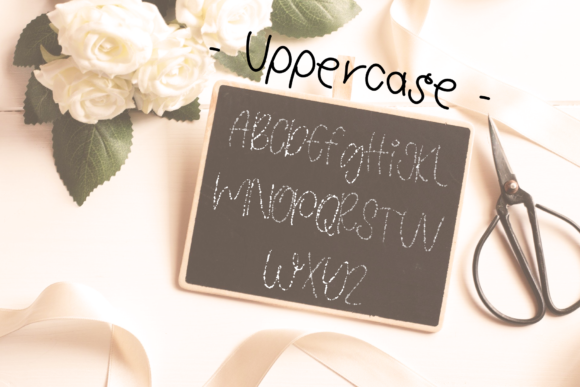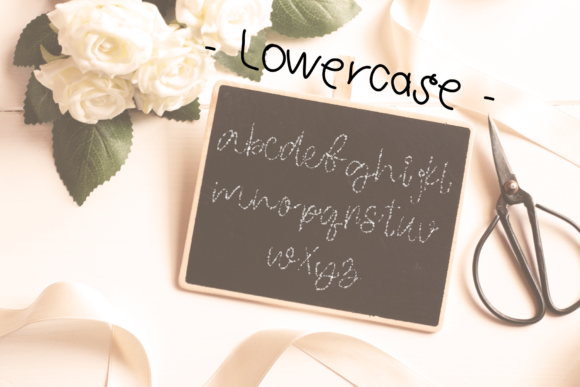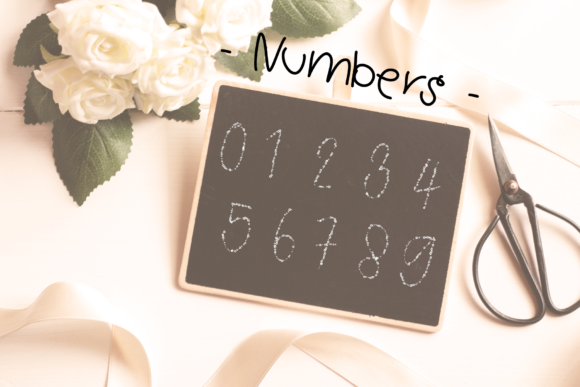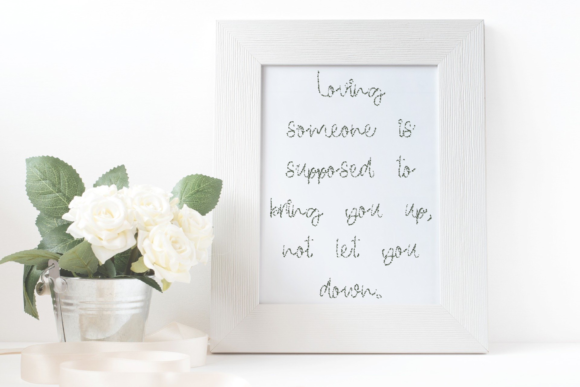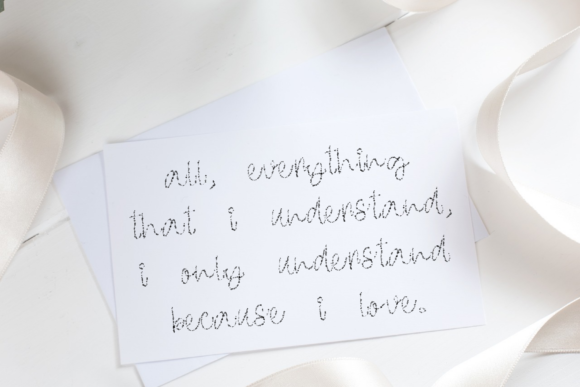
Unleash Your Creativity with Bubble Font
Have you ever stared at a blank page, struggling to find the perfect font to bring your creative idea to life? You’re not alone. As designers, we’ve all been there, desperately searching for that one font that makes our work pop.
Enter Bubble Font, a playful and charming handwritten font that adds a touch of whimsy to any design. Whether you’re creating a birthday card, a social media post, or a brand identity, Bubble Font is the perfect addition to elevate your work.
For designers, Bubble Font is a valuable asset. Its unique, hand-drawn style makes it stand out in a crowded market, and its versatility ensures it can be used in a wide range of projects. With Bubble Font, you can add a touch of personality to your designs and make them truly unforgettable.
Bubble Font Key Features
- Unique Characteristics: Bubble Font features a distinctive, hand-drawn style with rounded bubbles and playful connections between letters, adding a whimsical touch to any design.
- Kerning and Ligatures: The font includes advanced kerning and ligature features, ensuring smooth letter spacing and elegant connections between letters.
Bubble Font Review
Overall, I’m really enjoying working with the Bubble Font. ✨ It’s so playful and fun, it adds a great touch to any design. The rounded, bubbly shapes are perfect for creating a lighthearted and approachable atmosphere.
The font is highly customizable, which is great for designers who want to fine-tune their work. You can adjust the size, color, and even add animations to make it truly stand out. ✨ The font’s compatibility with various devices and platforms is also a major plus.
Here are some of the features that work well:
- Perfect for playful and approachable designs
- Compatible with various devices and platforms
- Can be used for animations and effects
However, there are a few limitations:
- May not be suitable for formal or professional designs
- Can be difficult to read in certain font sizes
- Not as many language support options as some other fonts
Overall, I’d say the Bubble Font is a great choice for designers who want to add some personality to their work. While it may have some limitations, its unique style and customization options make it a great addition to any design toolkit.
To get the most out of Bubble Font, use it sparingly and in combination with other design elements to create visual interest. You can also experiment with different font sizes and colors to create a unique look.
Bubble Font is commonly used in social media graphics, flyers, and posters to add a playful and eye-catching touch. It’s also great for creating custom invitations and event graphics.
Alternatives to Bubble Font
Helvetica Rounded
Helvetica Rounded is a sans-serif font with rounded edges, making it a great alternative to Bubble Font. It’s ideal for use in titles, headings, and body text where a friendly and approachable feel is desired. Helvetica Rounded is more versatile than Bubble Font and can be used in a wide range of applications, from corporate identities to digital products.
Comparison: While Bubble Font has a more playful and whimsical feel, Helvetica Rounded is more straightforward and clean. Helvetica Rounded is also more legible at smaller font sizes, making it a better choice for body text.